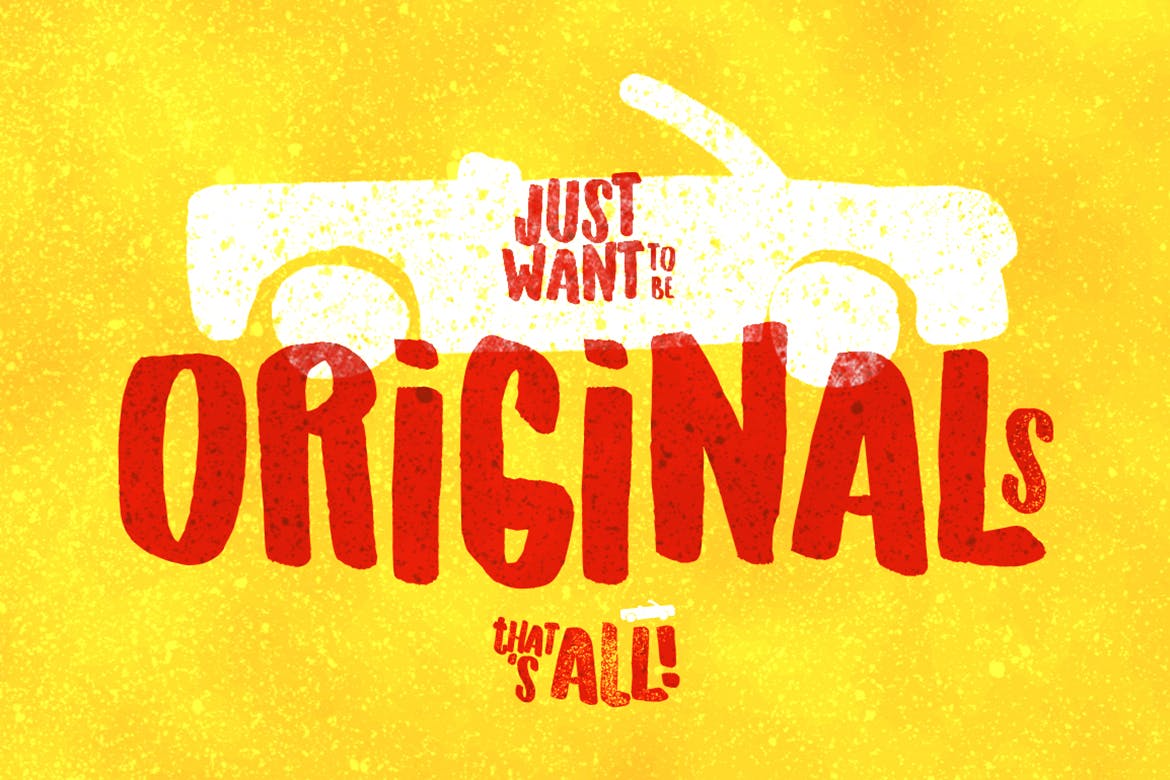
Originals Typeface Font
The Originals Typeface Font is perfect for authentic brand identities, creative agency portfolios, independent artist projects, innovative startup logos, original content platforms, unique product packaging, artisan craft branding, creative studio signage, authentic social media campaigns, and distinctive editorial designs.
What makes the Originals Typeface Font so exciting is its distinctive character that celebrates creative individuality and authentic expression while maintaining professional quality and contemporary appeal. This remarkable typeface features unique letterform construction, original design elements, and innovative character details that create an unmistakable identity perfect for brands seeking to communicate authenticity, creativity, and genuine originality. The font's distinctive personality and authentic appeal make it an exceptional choice for creative professionals and innovative brands seeking to stand out from conventional typography with genuine artistic integrity.
The Originals Typeface Font family includes creative variations and original alternates, featuring multiple stylistic options, unique character sets, and innovative design elements. Each variation maintains the signature original appeal while offering different levels of creative expression and distinctive styling, providing designers with extensive possibilities for crafting unique brand personalities and authentic creative communications.
This exceptional Originals Typeface Font Free Download represents the perfect authentic typography solution for designers who value creative originality and distinctive visual identity over conventional design approaches. Whether you're developing independent brand identities, creating artistic portfolio materials, or designing innovative creative campaigns, this versatile original font delivers compelling results that resonate with audiences seeking genuine creativity and authentic expression.
The innovative design characteristics of Originals Typeface Font showcase expert original typography craftsmanship, with each character featuring unique construction details and creative refinements that enhance its distinctive appeal and artistic authenticity. The font's comprehensive character set includes standard letters, numerals, creative punctuation, and original symbols, ensuring complete functionality for diverse creative projects and international artistic applications.
Specifically crafted for both digital and print creative applications, this outstanding font maintains its original character and distinctive personality across all sizes and formats. From large-scale creative installations to detailed artistic projects, Originals Typeface Font performs exceptionally while preserving its signature innovative character and authentic creative appeal.